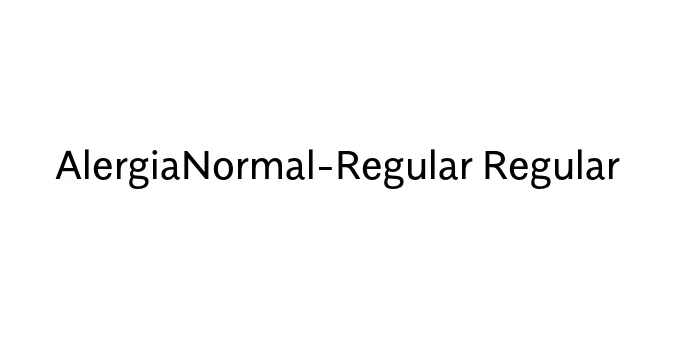
AlergiaNormal-Regular Regular
Designed by Mateusz Machalski
Alergia Normal Regular is a contemporary sans-serif typeface designed by the renowned Polish typographer Mateusz Machalski. Released as part of the broader Alergia Grotesk family, this font represents a sophisticated hybrid that bridges the gap between classic geometric forms and modern grotesque aesthetics. Its clean lines and balanced proportions make it an exceptionally versatile tool for designers seeking a professional yet approachable look.
The design of Alergia Normal focuses on readability and structural integrity, making it suitable for both high-resolution print and digital screen displays. Characterized by its subtle humanist touches and a wide range of weights, it stands out in corporate branding, editorial layouts, and user interface design. Whether used for long-form body text or striking headlines, Alergia Normal Regular delivers a polished and modern typographic experience.
AlergiaNormal-Regular Best Uses
Perfect for logo design and professional brand manuals.
Highly readable for body text and navigation menus on digital platforms.
Excellent for magazine layouts, book interiors, and brochure content.
Clear and impactful for poster headlines and social media marketing graphics.